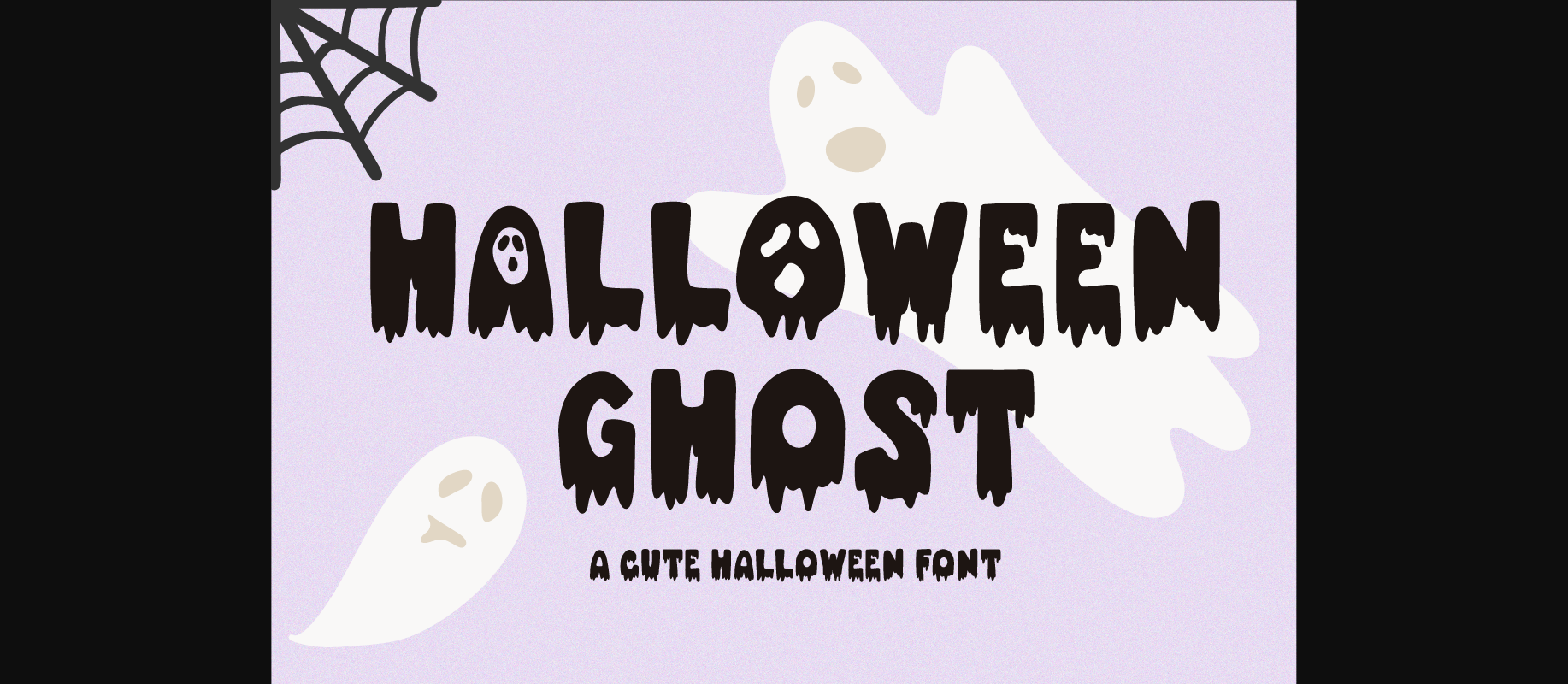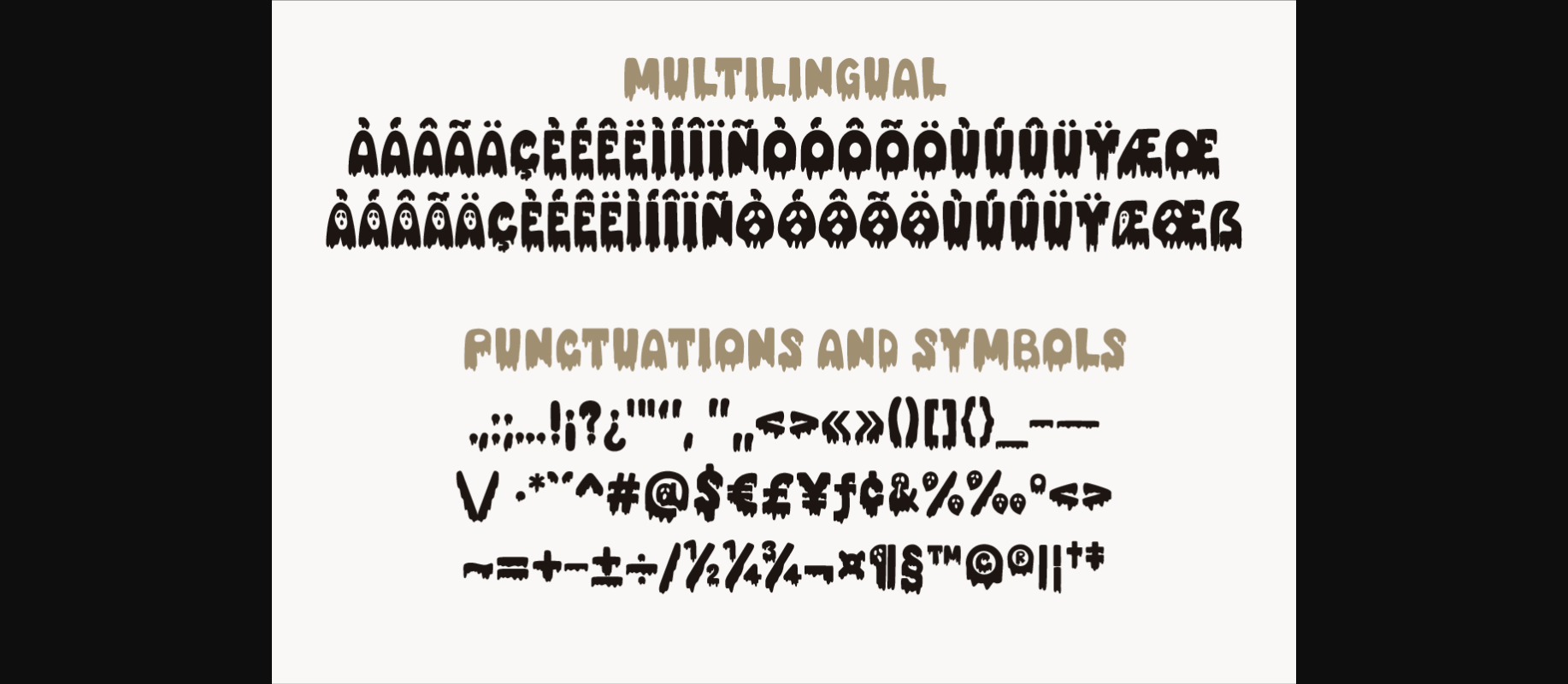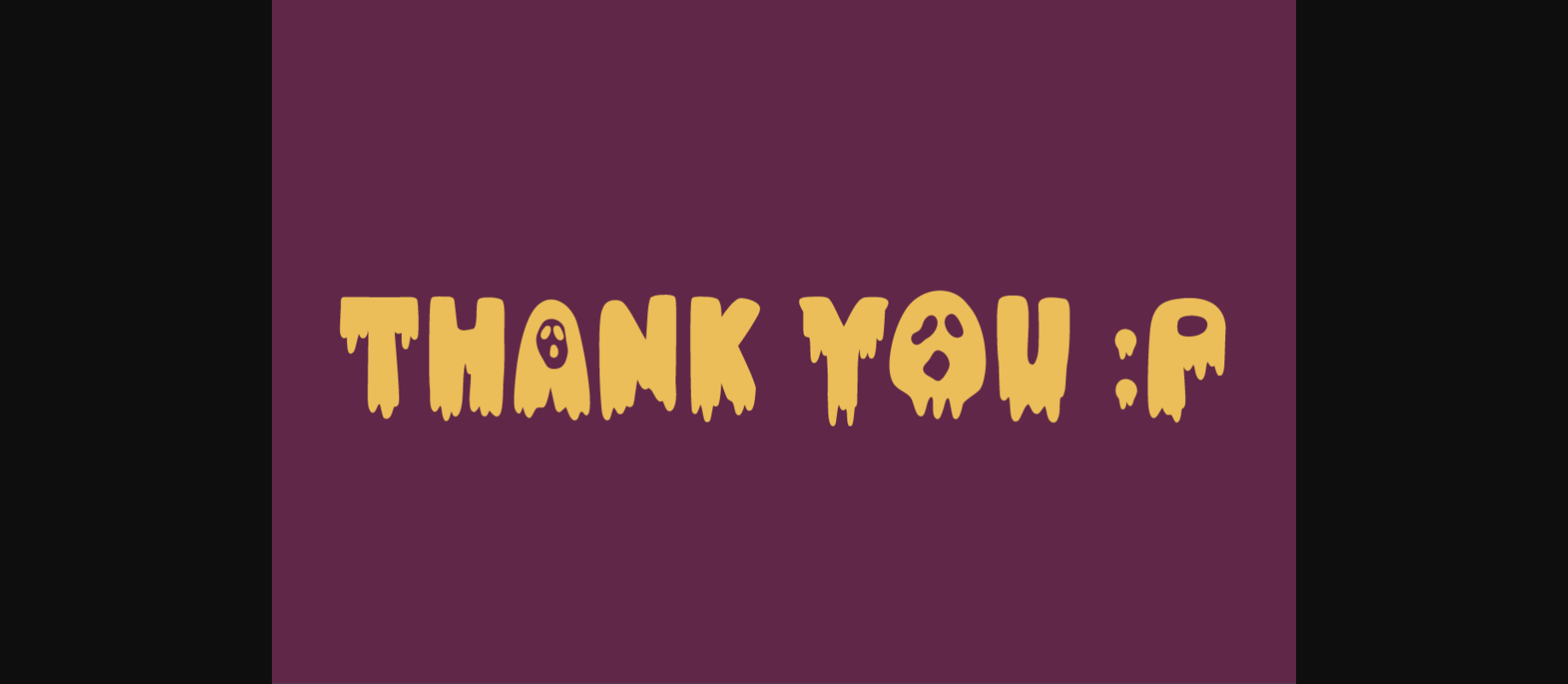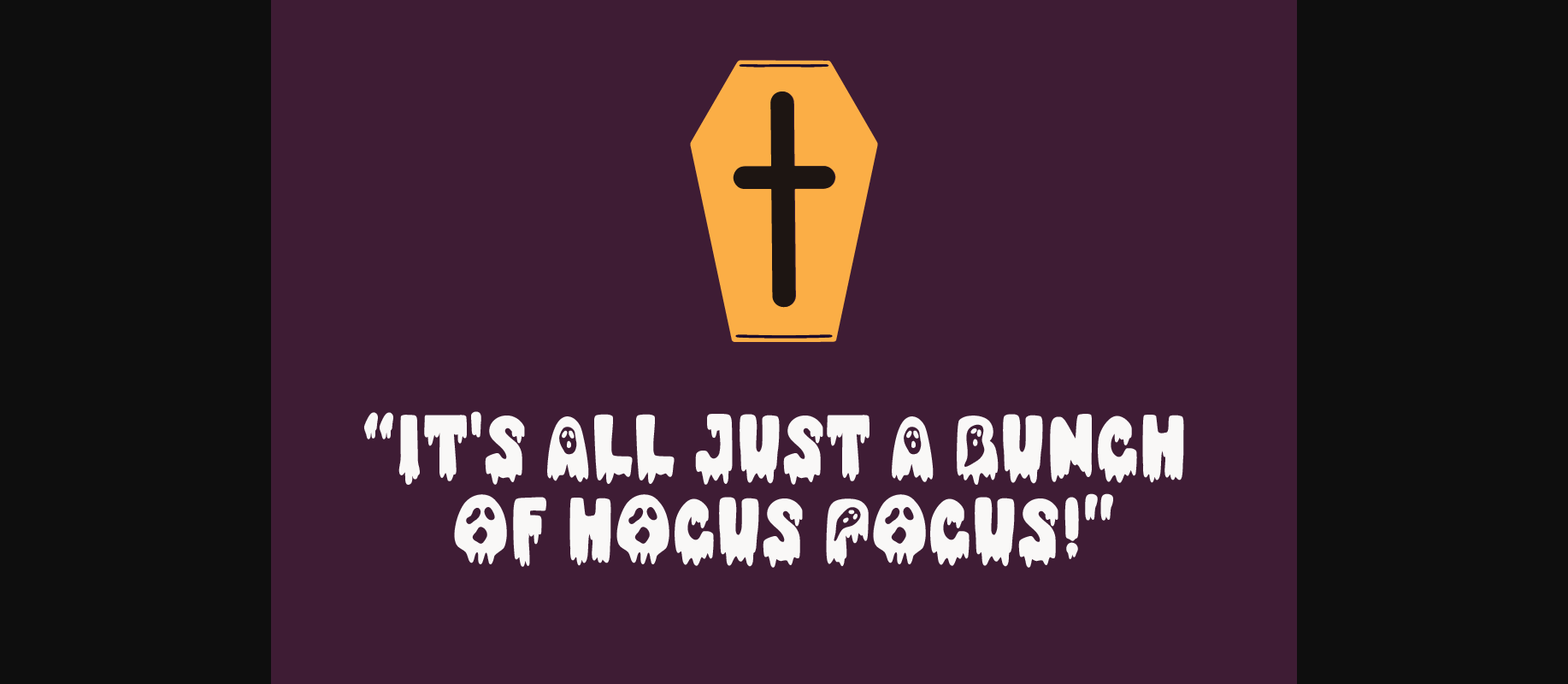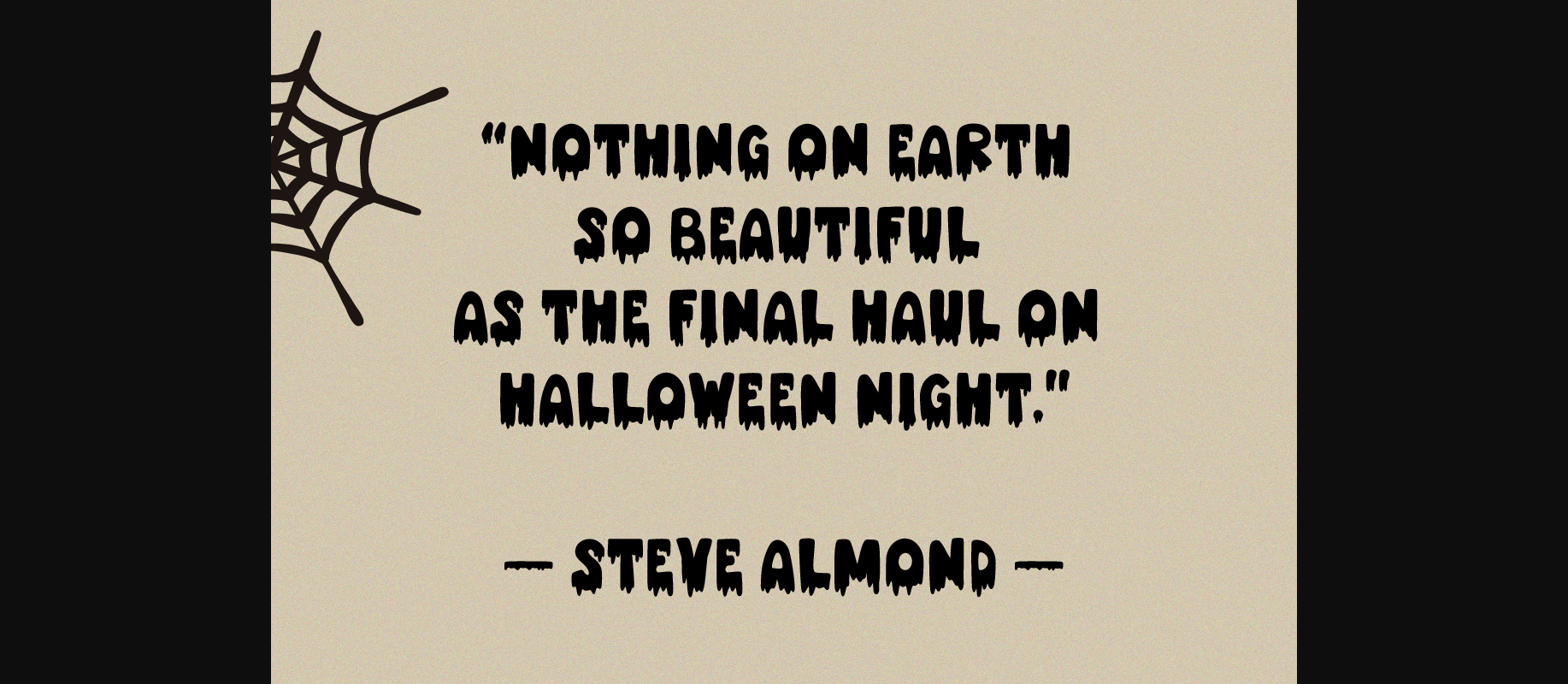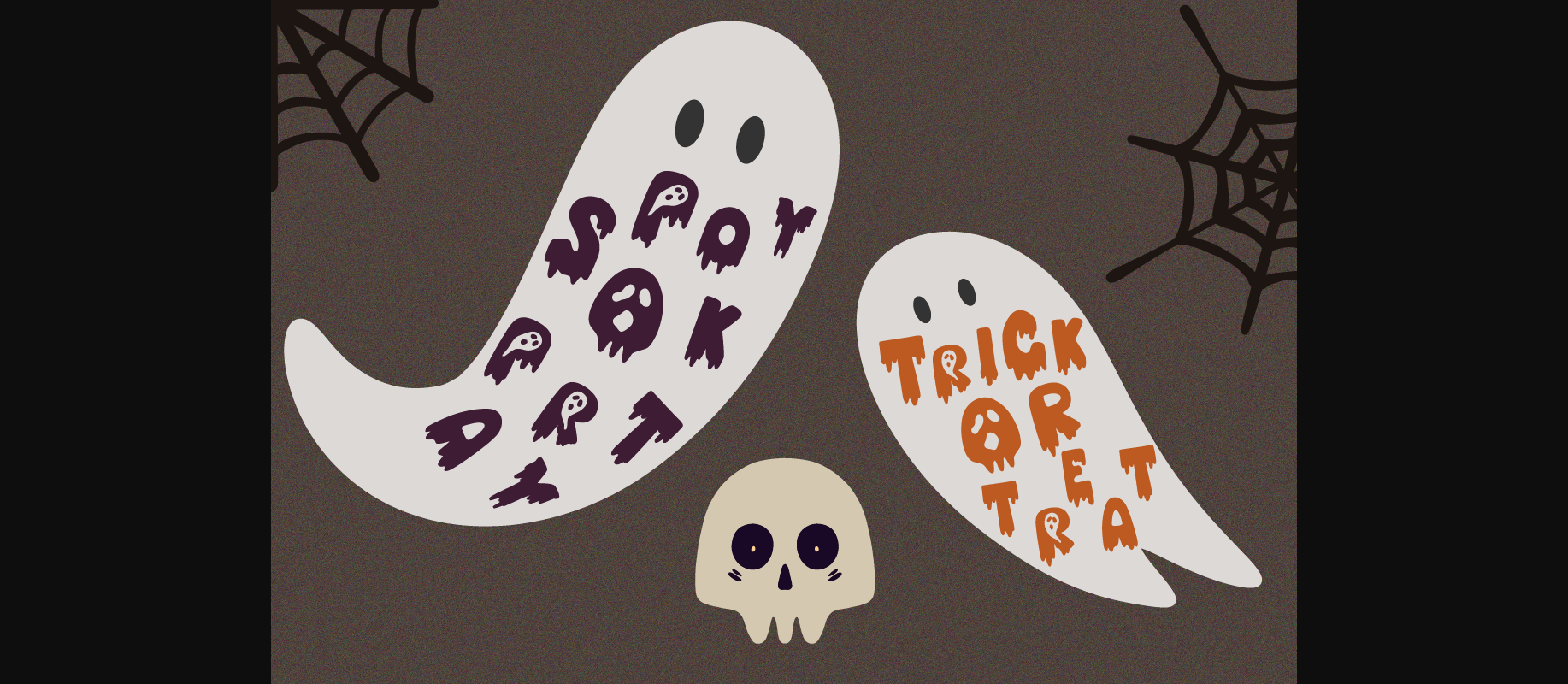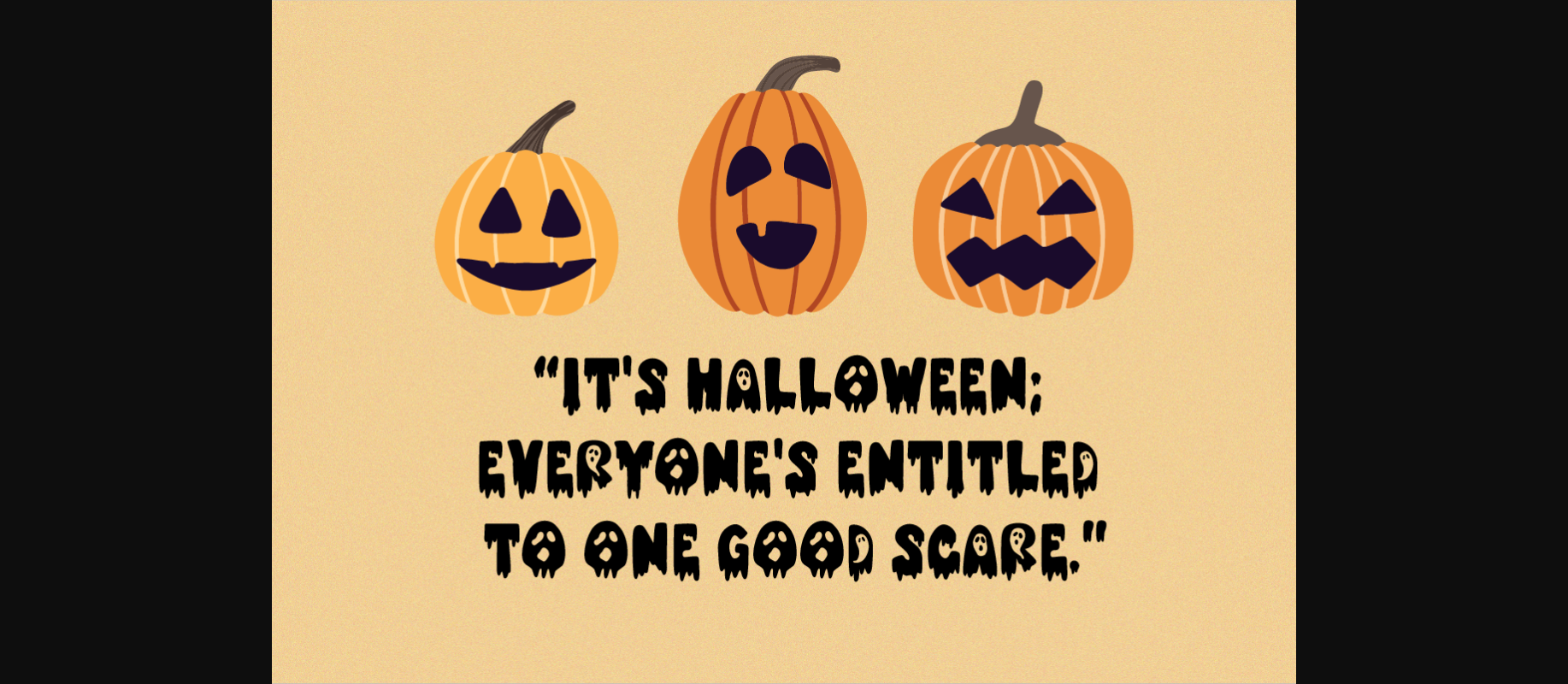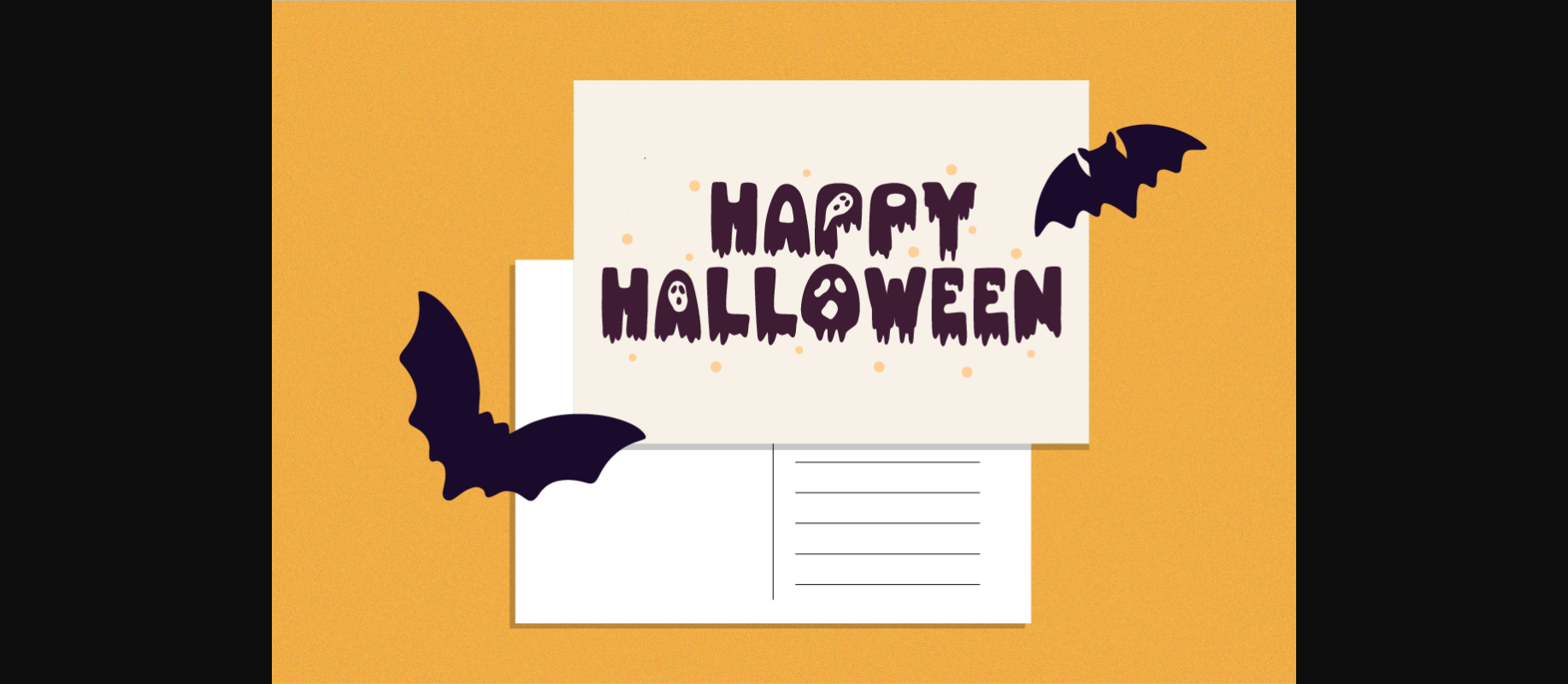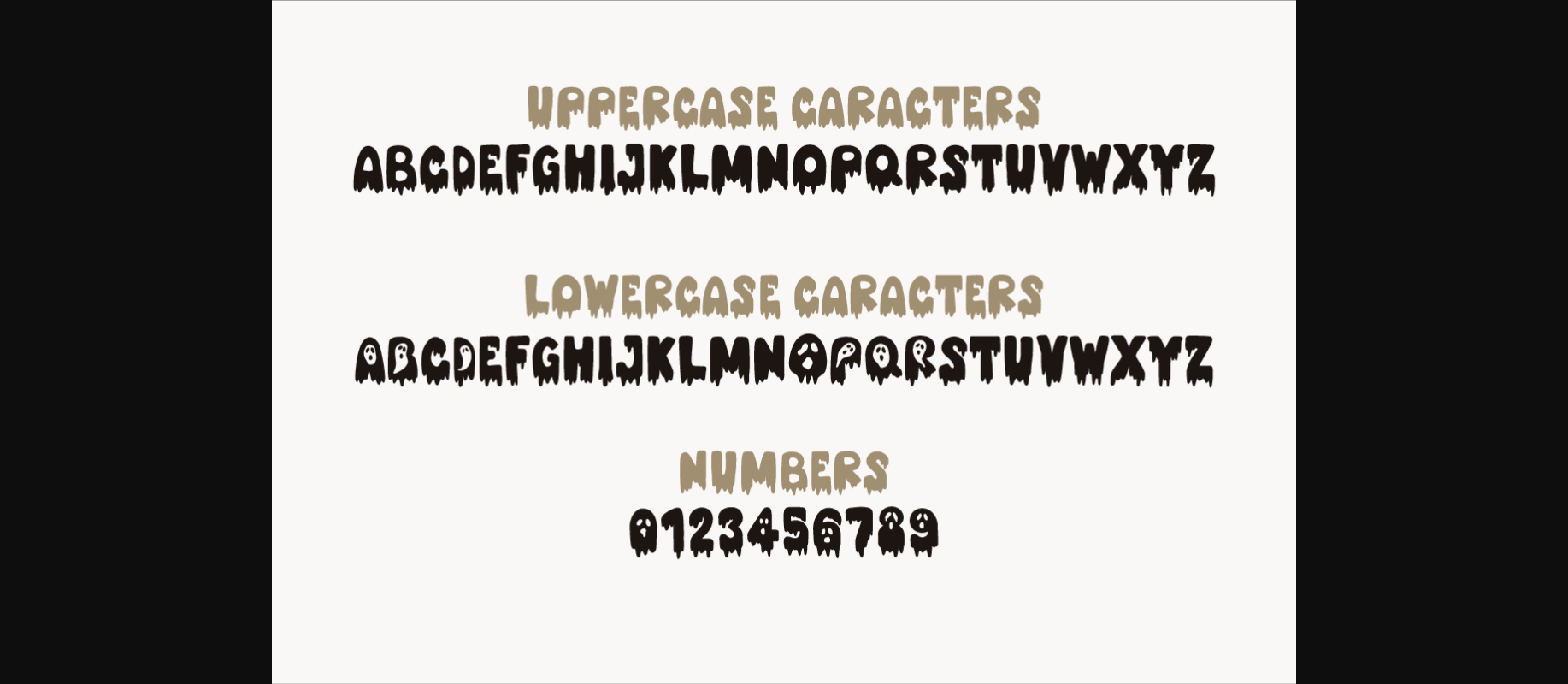
Halloween Ghost Font
About Halloween Ghost Font
Halloween Ghost is a spooky Halloween font with a dripping style. Perfect for circuit projects, shirts, retro designs, Halloween invitations, mugs, stickers, playful quotes, creating posters, logos, greeting cards, packaging, decorating the illustration and so much more!